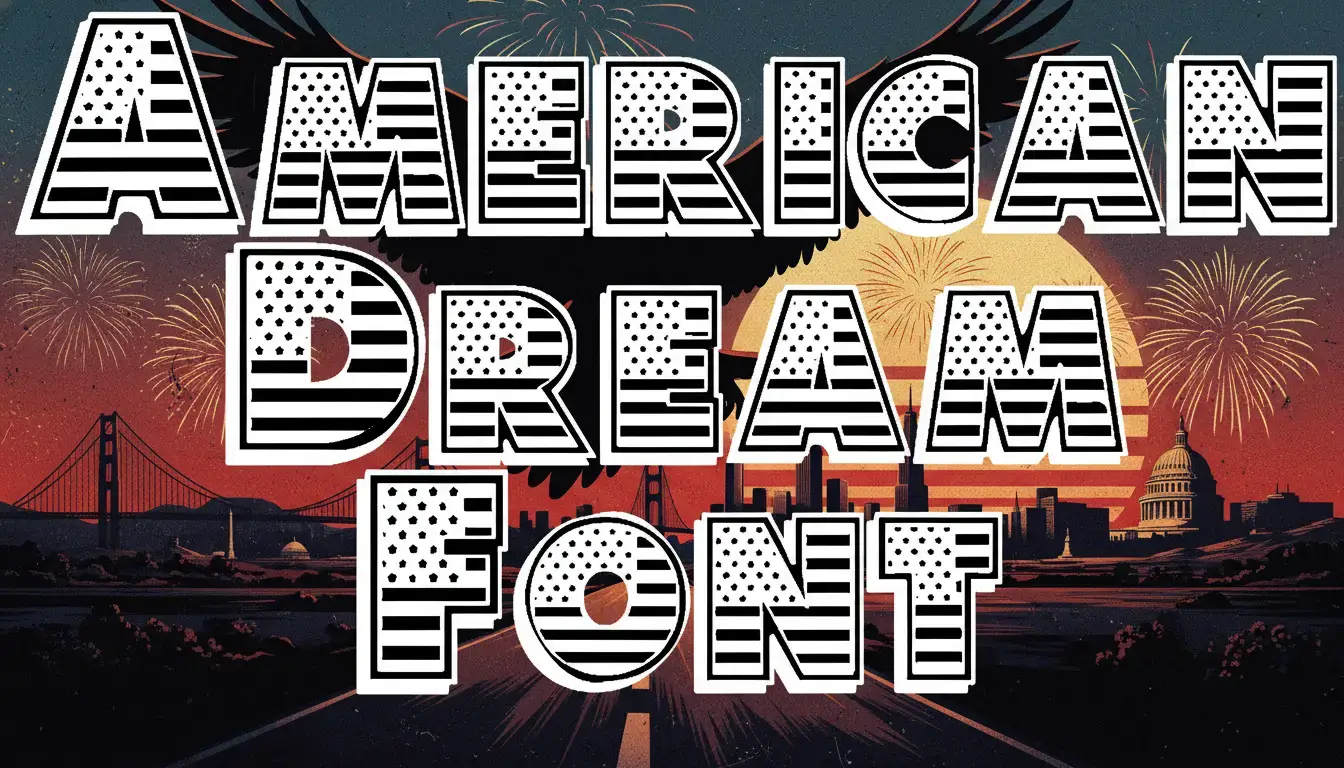
Bold, all-caps block shapes embedded with built-in decorative star and stripe configurations inside the glyph architecture. Best For 4th of July party designs, political campaign graphics, and novelty vector posters. This vintage novelty file is cataloged as completely 100% free for both personal and public creative layouts
American Dream
American Dream is a 3D font.